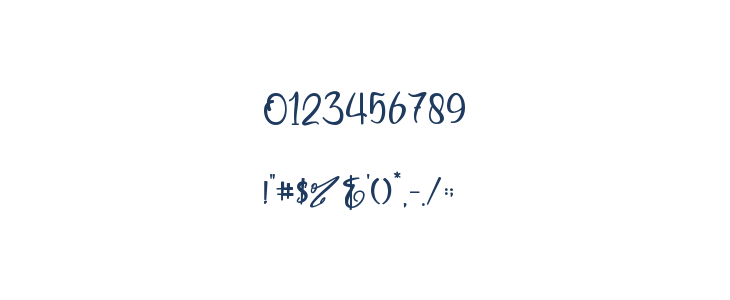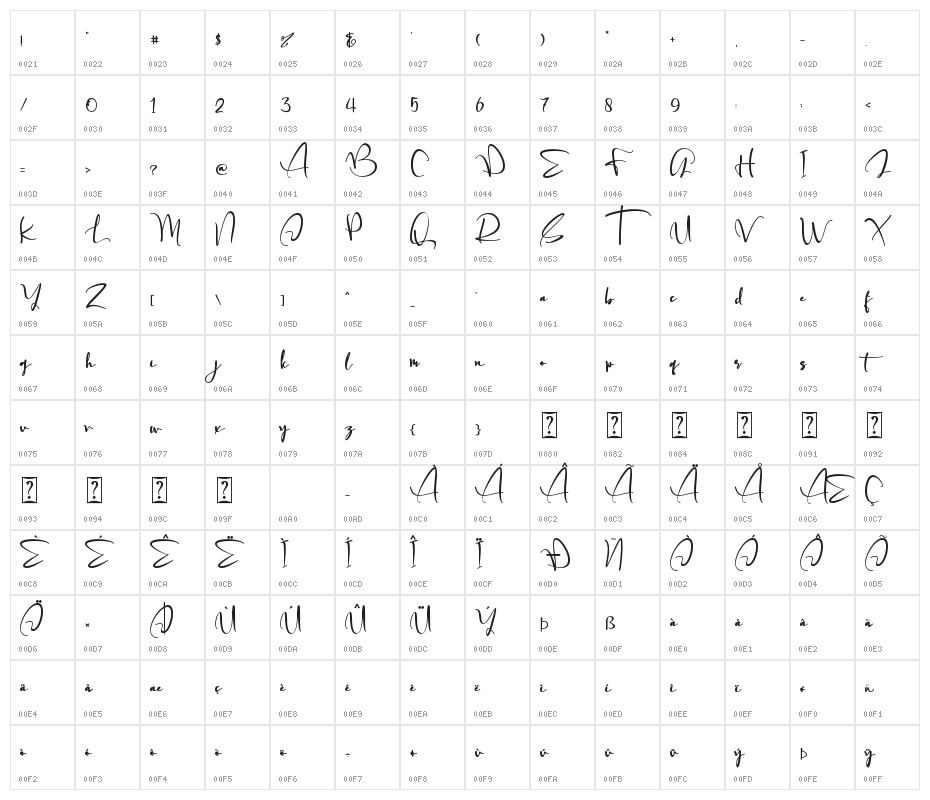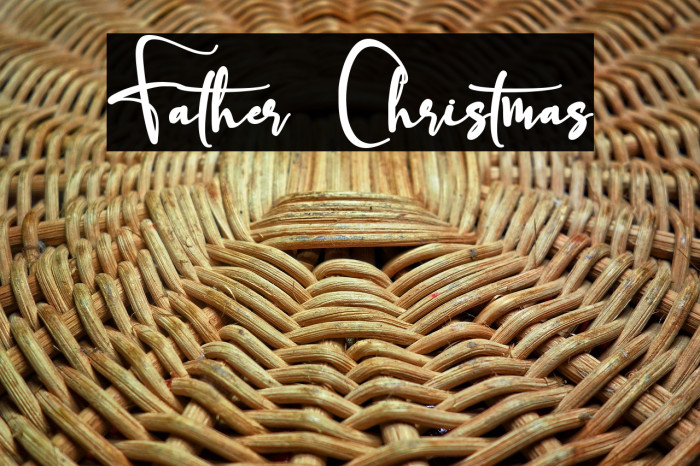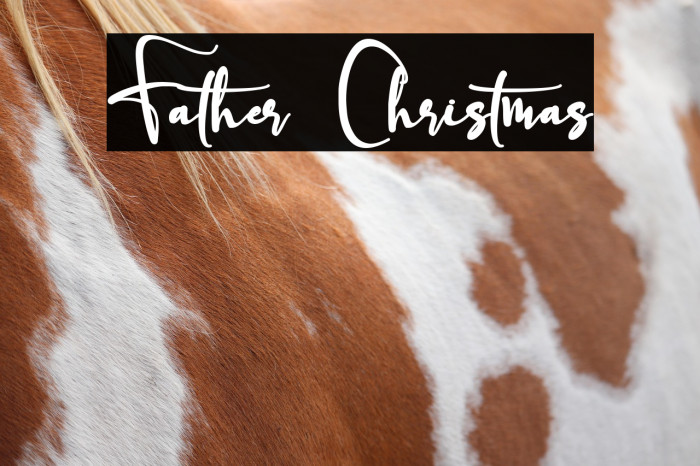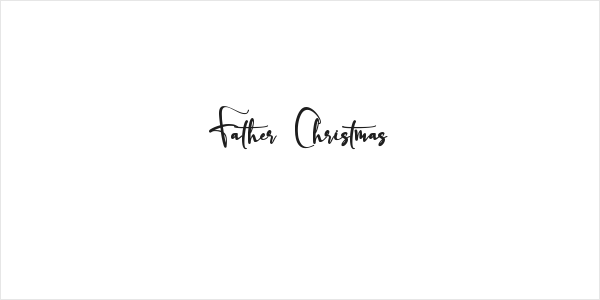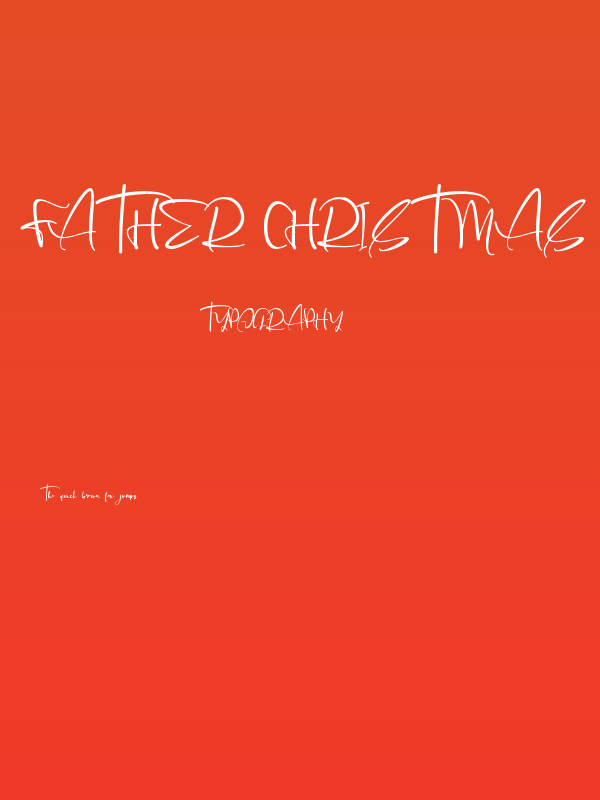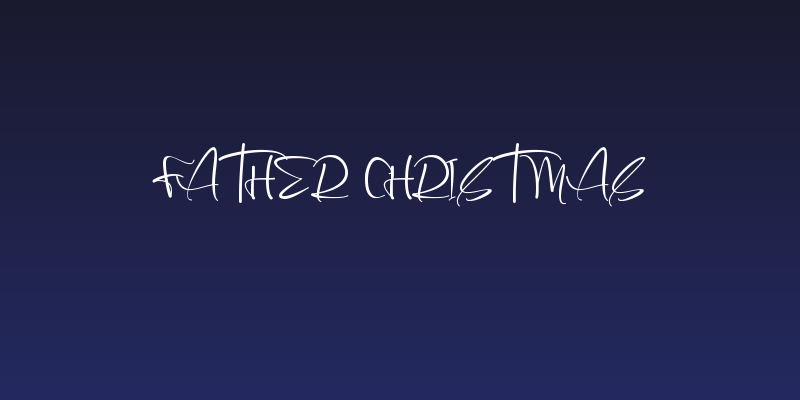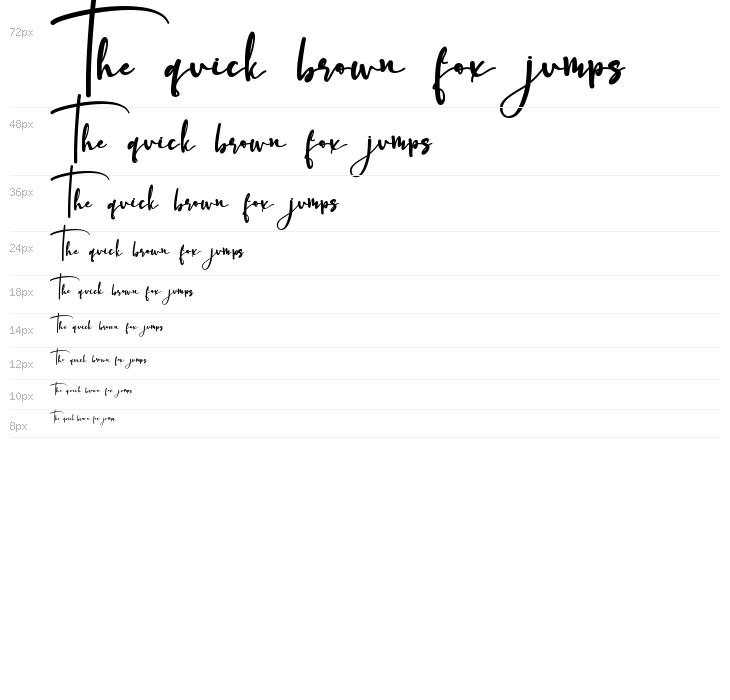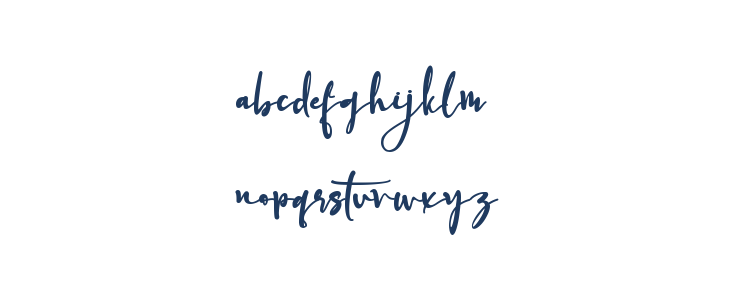
Father Christmas Font
Father Christmas Description
This font features an elegant and flowing script style, characterized by its fluid, cursive strokes and artistic flair. The uppercase letters exhibit a dynamic and expressive form, with varying line thickness that adds a sense of movement and grace. The lowercase letters maintain a consistent style, complementing the uppercase with their smooth curves and loops. The numerals are crafted with a similar attention to detail, ensuring readability while maintaining the overall aesthetic. Special characters are thoughtfully designed, integrating seamlessly with the rest of the font. This font exudes a sense of sophistication and creativity, making it suitable for a variety of artistic and decorative applications.
| Use Case | Logos, Invitations, Artistic designs |
| Proposed Projects | Ideal for wedding invitations, greeting cards, branding, and artistic projects. |